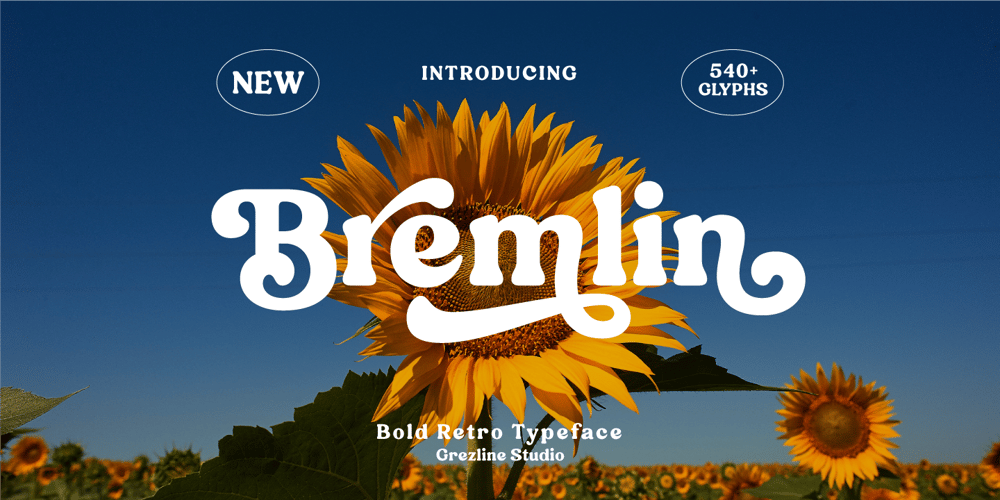
Bremlin Font Family was designed by Akhmad Reza Fauzi and published by Grezline Studio. Bremlin contains 1 styles and family package options. Hello! Let me Introduce you my latest font creation called Bremlin!Bremlin is a bold retro font with a lot of alternate glyphs. This font is perfectly match for groovy retro and vintage design. Bremlin font is also usable in a wide range of works such as logos, covers, posters, quotes, product packaging, merchandise, social media and much more!Use this font and let your creativity vibing!!Feature :- Ligature & Alternate glyphs- Multilingual Language- Works on PC & Mac- Simple installations- Accessible in the Adobe Illustrator, Adobe Photoshop, Adobe InDesign, even works on Microsoft Word.Thank you!Grezline Studio – Akhmad Reza Fauzi